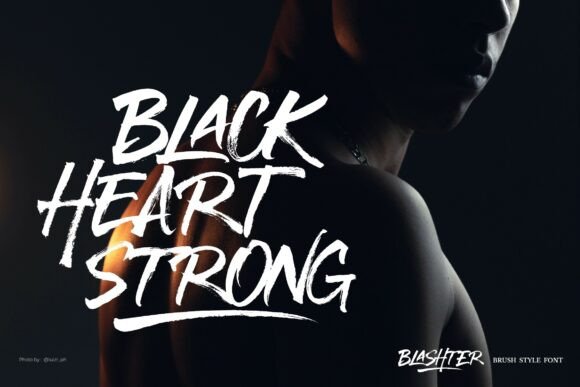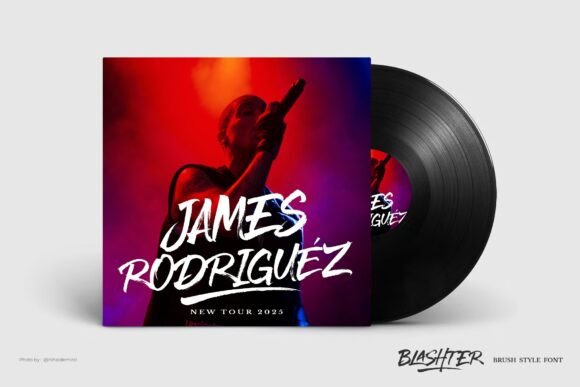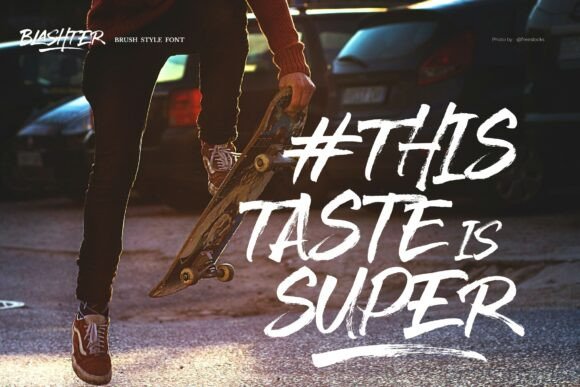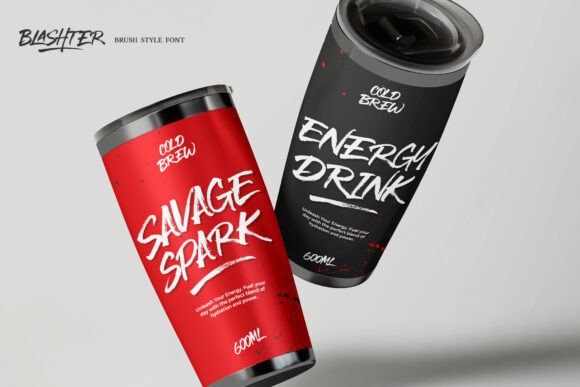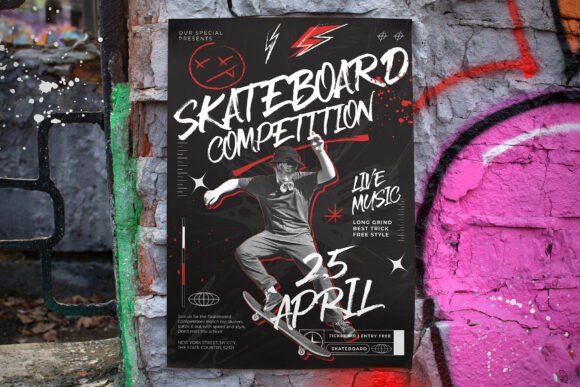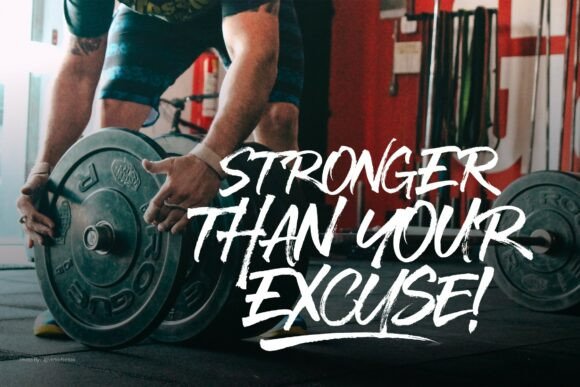
Unleash Your Creativity with Blashter Font: The Ultimate Brush Script for Urban Designs
Are you tired of using the same old fonts in your designs? Do you want to add a touch of rebellious charm and urban edge to your projects? Look no further than Blashter Font, a brush script font that embodies the raw energy of street culture and the spontaneous flow of hand-drawn marker lines.
The Essence of Blashter Font
Blashter Font is more than just a font – it’s an attitude, a vibe, a way to express yourself through your designs. With its bold, expressive lines and casual, freestyle lettering, Blashter reflects the essence of urban culture and the confidence of street art. Whether you’re a designer, artist, or crafter, Blashter Font is the perfect tool to add personality and impact to your work.
Key Features of Blashter Font
- Rebellious Charm: Blashter Font has a unique, edgy quality that sets it apart from other fonts. Its raw energy and spontaneous flow make it perfect for designs that need a bold, attention-grabbing statement.
- Urban Edge: With its street culture inspiration, Blashter Font adds an urban edge to any design. It’s perfect for projects that require a modern, trendy feel.
- Multilingual Support: Blashter Font isn’t just limited to English. It includes multilingual support, making it a go-to font for artists and designers around the world.
- Full of Momentum and Character: Blashter Font is full of life and energy, with a character that shines through in every letter. It’s perfect for designs that need a dynamic, expressive touch.
Uses of Blashter Font
Blashter Font is versatile and can be used in a variety of design projects, including:
- Graphic Design: Use Blashter Font to add a bold, eye-catching element to your graphic designs, such as posters, flyers, and brochures.
- Branding: Blashter Font is perfect for creating unique, memorable brand identities that stand out from the crowd.
- Art and Illustration: With its hand-drawn, spontaneous feel, Blashter Font is a natural fit for artistic projects, such as illustrations, comics, and cartoons.
- Crafting: Blashter Font can add a personal touch to your crafting projects, such as handmade cards, scrapbooking, and DIY signs.
Why Choose Blashter Font?
With so many fonts available, why choose Blashter Font? Here are just a few reasons:
- Unique Style: Blashter Font has a distinctive, one-of-a-kind style that’s sure to set your designs apart.
- High-Quality Design: Blashter Font is designed with high-quality, crisp lines that look great in any size or resolution.
Blashter Font is a powerful tool for designers, artists, and crafters who want to add a touch of urban edge and rebellious charm to their projects. With its unique style, ease of use, and high-quality design, Blashter Font is the perfect choice for anyone looking to unleash their creativity and take their designs to the next level.